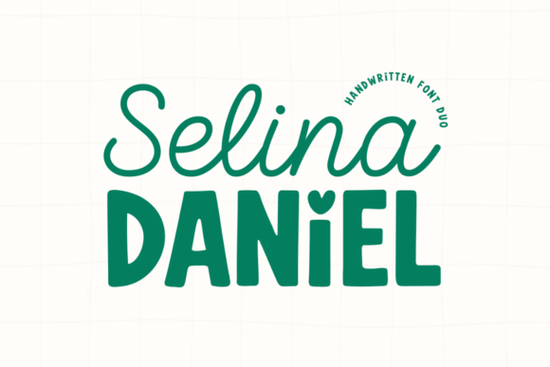
If you're looking for a handwritten font duo that feels personal, balanced, and easy to use without overcomplicating your design workflow you’ll appreciate the Selina Daniel Duo Font. It’s not just two fonts in one package; it’s a thoughtful pairing designed to work together from day one. The script (“Selina”) flows like ink on paper light, romantic, and full of gentle movement while the sans-serif (“Daniel”) grounds the composition with friendly thickness and that charming heart-shaped dot over the “i.” Both share the same hand-drawn rhythm, so they never clash, even when used side by side.
When does this font duo actually save time?
Most designers juggle multiple fonts to create hierarchy script for headings, sans for body, maybe a third for captions. With Selina Daniel Duo Font, you get that balance built-in. No hunting for compatible pairings or adjusting tracking and baseline shifts to make things line up. Use Selina for a boutique logo tagline or wedding invitation headline, then switch to Daniel for the date, venue, or product description and everything feels intentional. It’s especially helpful if you’re designing for social media stories, where quick readability and visual warmth matter more than perfection.
What kinds of projects suit it best?
This duo shines in contexts where personality and approachability are key:
- Boutique branding think handmade soap labels, ceramic studio logos, or small-batch candle packaging
- Wedding stationery invitations, place cards, or digital RSVP graphics where elegance meets warmth
- Print-on-demand apparel t-shirts, tote bags, or mugs with short, expressive phrases (e.g., “Made with love” or “Hello, sunshine”)
- Instagram quotes and Reels text overlays, where contrast helps words pop against busy backgrounds
It’s less suited for long-form body text or technical documents but that’s by design. Handwritten fonts aren’t meant for paragraphs. They’re meant to highlight, invite, and connect.
How do you access all the extras?
The font includes PUA (Private Use Area) encoding, which means stylistic alternates, ligatures, and special characters including that heart dot are accessible right from your character map or glyph panel in apps like Adobe Illustrator, Affinity Designer, or even Canva (with desktop app). You don’t need OpenType features turned on manually. Just type, then swap glyphs as needed. For example: typing “love” might give you a standard “i,” but selecting the alternate glyph replaces it with the heart version instantly.
How does it compare to other popular duos?
Unlike some script-sans combos that feel mismatched or overly stylized, Selina Daniel keeps things cohesive without sacrificing character. If you’ve tried Rainbow Darling Duo Font, you’ll notice Rainbow Darling leans bolder and more playful great for kids’ products or vibrant merch. Lemon Font is cleaner and more minimalist, ideal for modern cafes or wellness brands. Meanwhile, Nebulan Star Typeface brings celestial flair and fine-line detail, better for mystical or spiritual themes. And if you're working on school-themed designs like team apparel or classroom posters the School Varsity Font offers strong, classic lettering that reads well at a distance.
Before adding it to your library, keep these in mind:
- Test both weights together in your intended software even small differences in baseline alignment can affect how “glued” they look
- Use Daniel for any text that needs to stand out at small sizes (e.g., Instagram bio lines or product tags)
- Avoid stretching or distorting either font it’s hand-drawn for a reason; its charm lives in natural proportions
- Pair it with simple, neutral colors (soft sage, warm cream, dusty rose) to let the handwriting texture shine
If you already have a project in mind say, a set of greeting cards or a new Etsy shop banner try sketching the layout first using just Selina for headlines and Daniel for supporting lines. You’ll likely find the pairing clicks faster than expected.